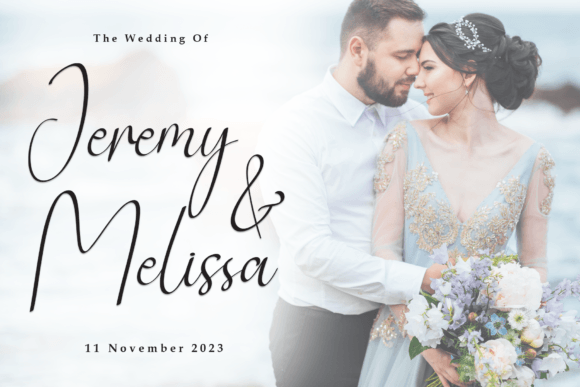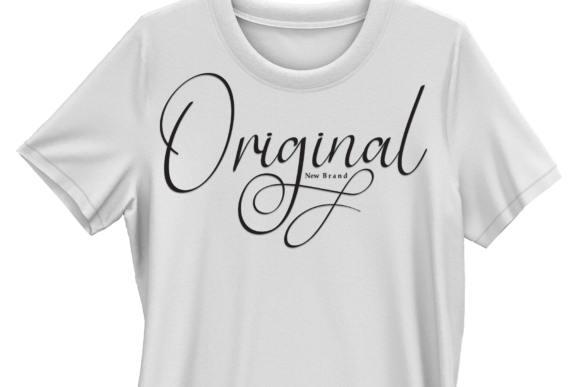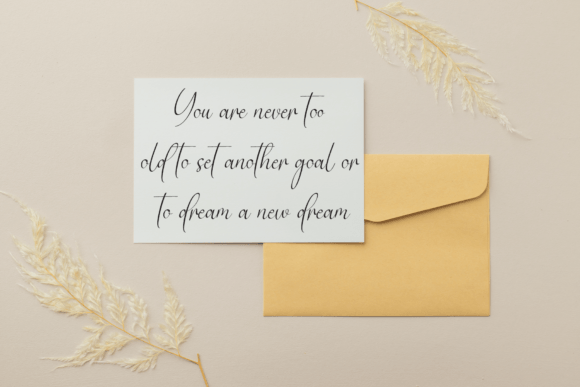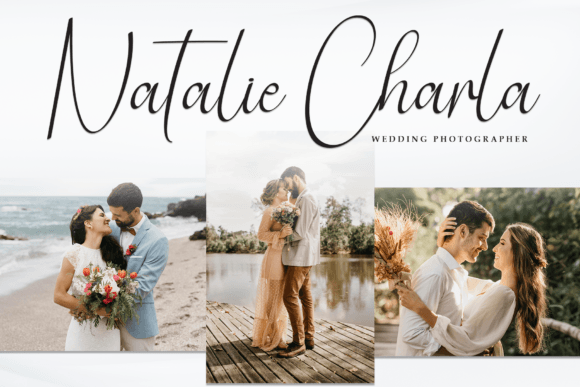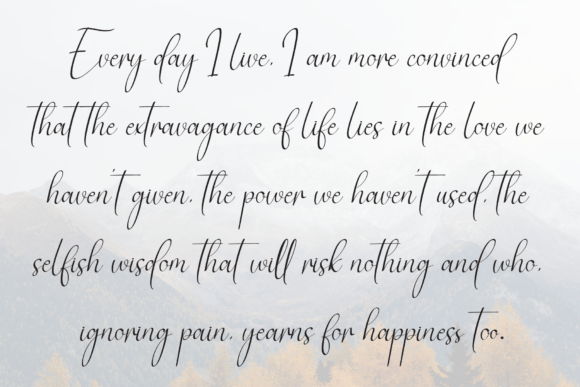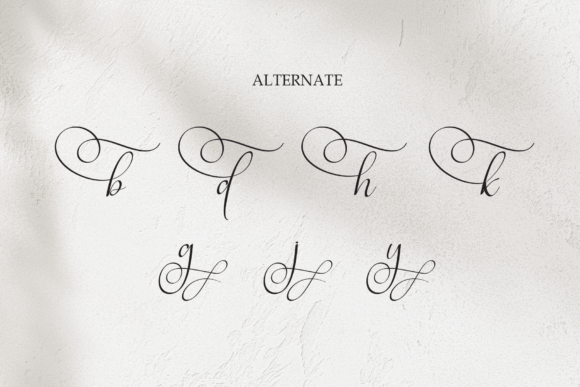
The Perfect Script for Love: Bigender Font
Have you ever found yourself sitting at your desk, surrounded by scraps of paper, sketches, and an endless supply of inspiration, searching for the perfect font to bring your romantic design to life? We’ve all been there. And sometimes, it’s not just about finding the right font, but the one that speaks to the essence of your creation. That’s where the Bigender Font comes in – a delicate, handwritten script that’s as sweet as a whispered promise.
Designed with love and precision, the Bigender Font is the ideal choice for writing wedding invitations, cards, or any design that requires a touch of whimsy and romance. As a designer, you’ll appreciate the versatility and uniqueness of this font, which can add a personal and emotional depth to your work. With the Bigender Font, you’ll be able to create designs that are as beautiful as they are meaningful.
Bigender Font Key Features
- Unique Characteristics: Bigender Font features a unique blend of masculine and feminine elements, creating a harmonious balance between contrasting styles.
Bigender Font Review
I recently had the chance to work with the Bigender font, and I have to say it’s a unique addition to any design project. Here’s my honest take on this intriguing font.
- The Bigender font is indeed bigender, meaning it can be read and interpreted as both masculine and feminine. This makes it a great choice for projects where inclusivity is key.
- The font is highly customizable, with a range of weights, styles, and sizes to choose from. This flexibility makes it easy to incorporate into various design elements.
- The Bigender font has a clean and modern aesthetic, making it suitable for a wide range of applications, from digital products to print materials.
- The font may not be as legible at very small sizes, which could be a concern for projects where text is limited.
- The Bigender font may not be as distinctive as other fonts in certain contexts, which could make it harder to stand out.
The Bigender font is a solid choice for designers looking for an inclusive and customizable font. While it may have some limitations, its unique qualities and flexibility make it a valuable addition to any design project.
Tips for Getting the Most Out of Bigender Font
Use Bigender Font to create visually appealing and inclusive designs. Consider using it for:
- Personal branding and identity
- Graphic design projects
Bigender Font is commonly used in:
- Non-binary and genderqueer identity projects
- LGBTQ+ advocacy and awareness campaigns
- Inclusive branding and marketing efforts